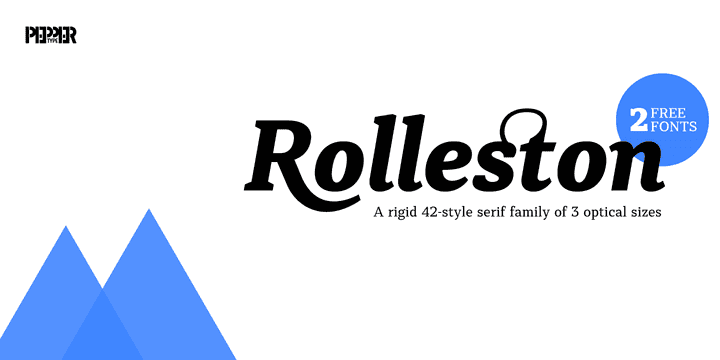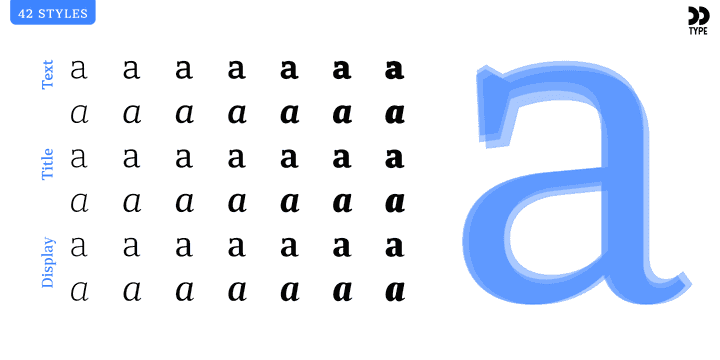
Rolleston is a slab serif font family that comes in a limited 42-style design, with sharp serifs that are unique in style. It comes in three optical sizes: Text, Title and Display. Rolleston comes with advanced language support including Cyrillic, numerous Opentype features and a great deal of ligatures and alternative – for pretty headlines and beautiful body copy.